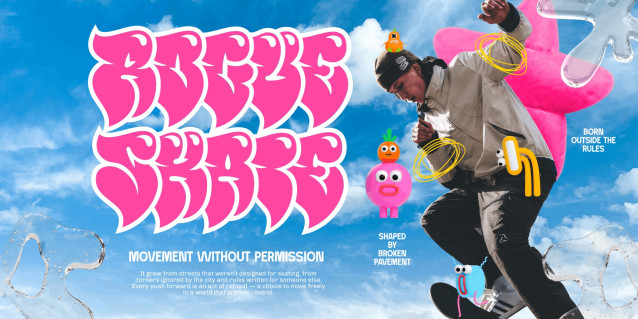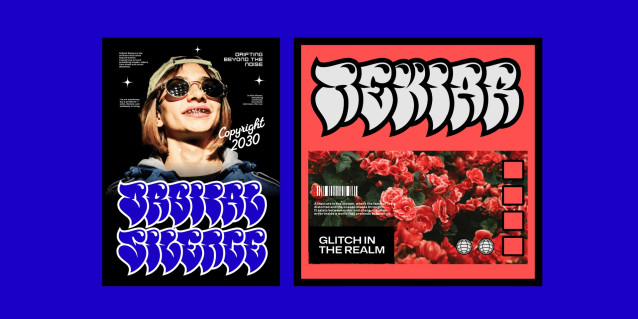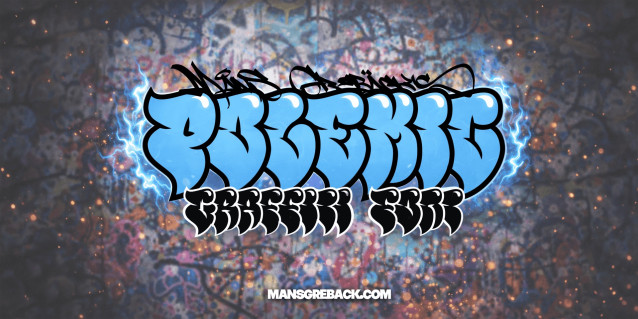
Polemic Font is a bold, graffiti-inspired display font built for expressive lettering with depth and attitude.Its shapes are inflated and fluid, borrowing from throw-ups and street pieces, with a rhythm that feels fast, confident and hand-driven. The letterforms are heavy but playful, designed to lock together naturally while still leaving room for character and movement.
The family is constructed as a 13-layer system, allowing colors, outlines, shines, highlights and overlaps to be stacked for complex graffiti-style effects. You can build everything from quick tags to more elaborate pieces by mixing styles, adjusting contrast, or stripping it back to a clean single layer.
Activate *Contexual Alternates* in your software (Adobe, Office, etc.) to get an automatic overlapping effect.
The font is built with advanced OpenType functionality and guaranteed top-notch quality, containing stylistic and contextual alternates, ligatures and more automatic and manual features; all to give you full control and customizability.
It has extensive lingual support, covering all Latin-based languages, from North Europa to South Africa, from America to South-East Asia. It contains all characters and symbols you’ll ever need, including all punctuation and numbers.
Polemic was hand-drawn by Mans Greback with graffiti in mind, but also with typographic structure and balance at its core. The goal was to capture the spontaneity of street lettering while keeping the system flexible and precise enough for professional typographic work, letting you shape your own expression.